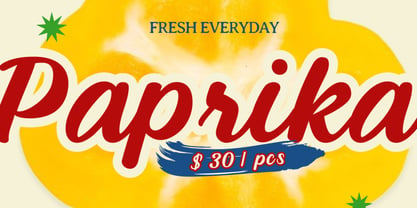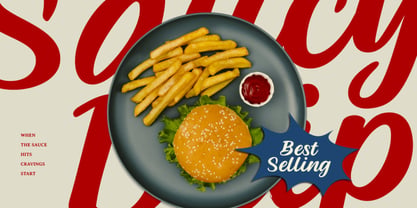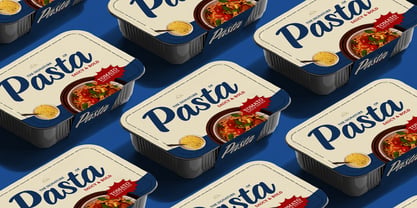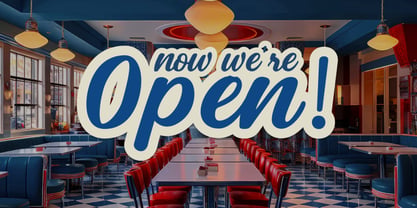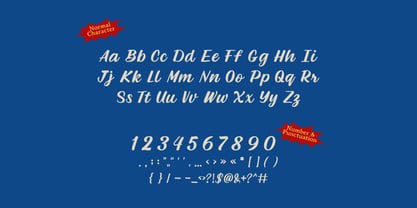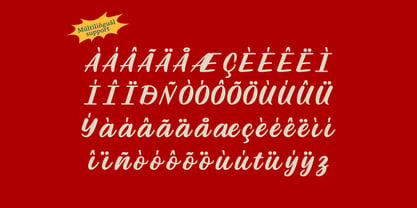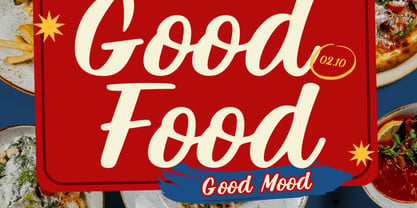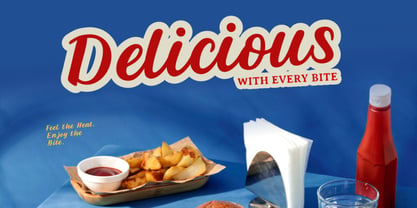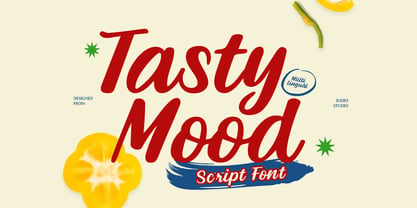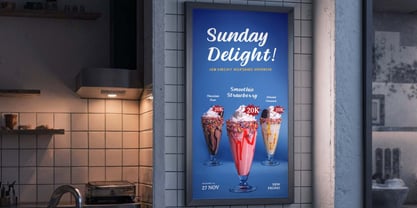
Tasty Mood
by Rasio Studio
The Tasty Mood Font Family was designed by Fajar Indra and published by Rasio Studio. Tasty Mood contains 1 styles. More about this family
Tasty Mood is a playful retro script font that brings warmth, flavor, and nostalgia to every design. Inspired by vintage diner signage and hand-painted food packaging, it combines smooth brush strokes with bold curves for a tasty visual. Perfect for restaurant branding, food packaging, posters, and social media graphics that need a friendly handwritten touch. Includes full uppercase and lowercase sets, numbers, punctuation, and multilingual support. Relevance and Use Cases is perfect for restaurant menus, fast food branding, retro diner posters, cafe packaging, vintage ads, social media promotions, and food photography overlays. It adds a flavorful handwritten charm that evokes comfort, nostalgia.
Designers: Fajar Indra
Foundry: Rasio Studio